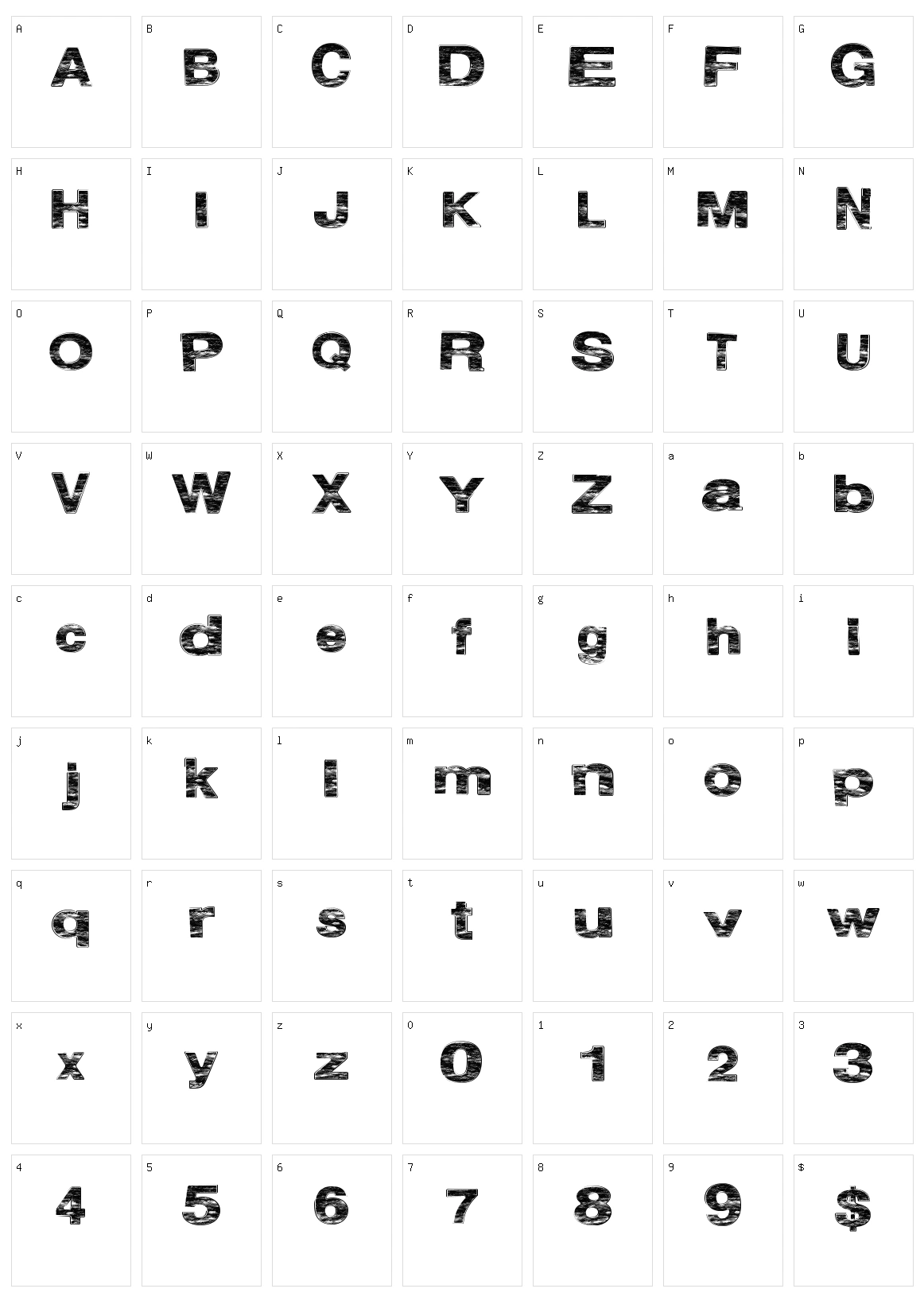
The free font Ocean Twelve is carefully designed by Xerographer Fonts, showcasing a thoughtful balance of creativity and usability and falls under the Eroded font style. When you download the ZIP file, it contains only 928.87 KB of font files, making it lightweight and quick to download. Please review the license details below to understand permitted usage and distribution rights. If license information is not available, we recommend using this font for personal projects only or contacting the author directly for commercial usage permissions.